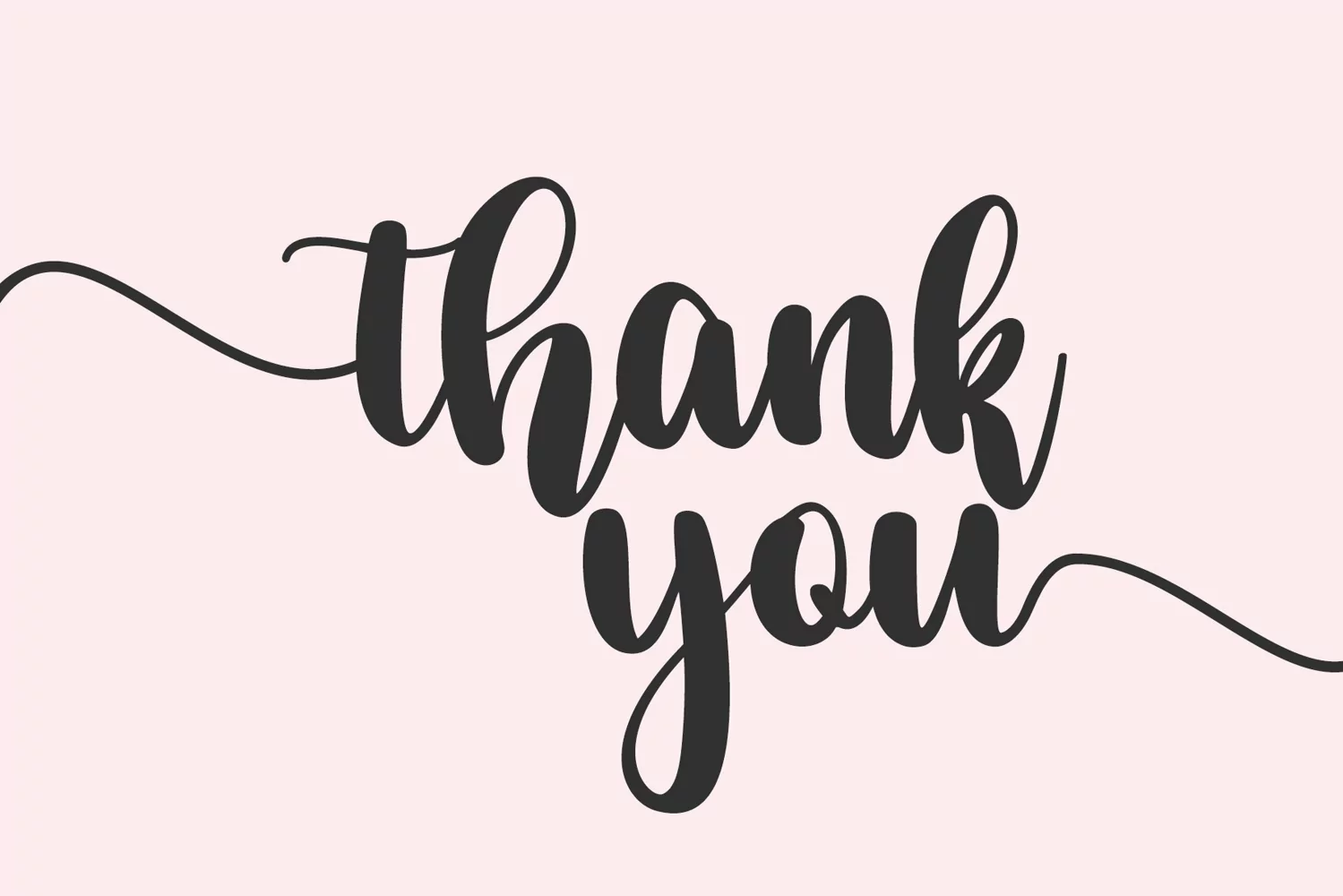
Bark Spears - Handwritten script font
Broh is a romantic and sweet calligraphy typeface with characters that dance along the baseline. It will add a luxury spark to any design project that you wish to create! This font is PUA encoded which means you can access all of the amazing glyphs and ligatures with ease!